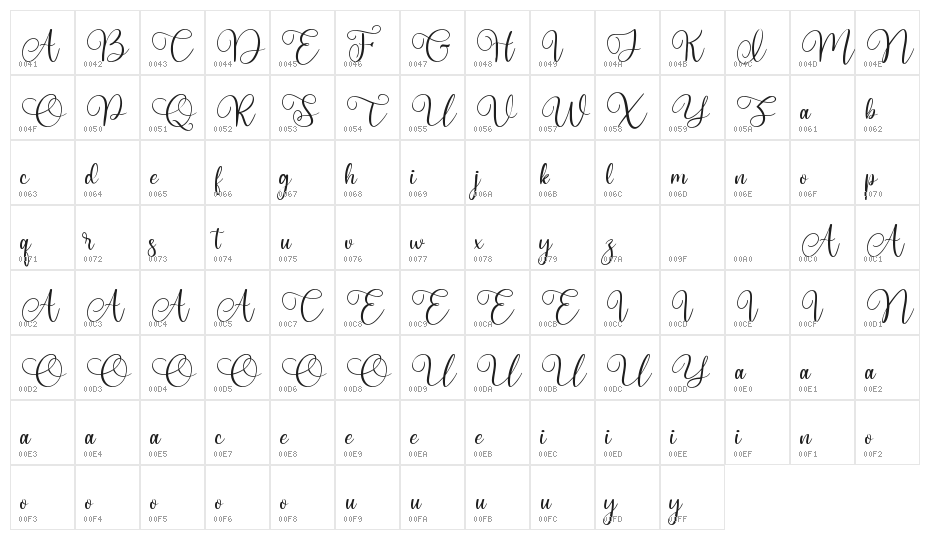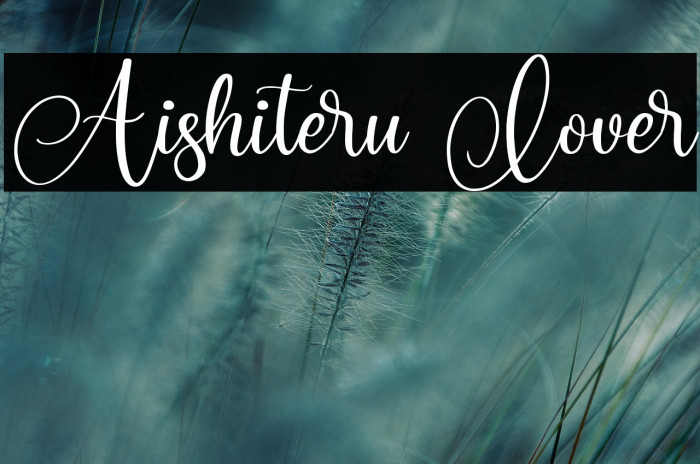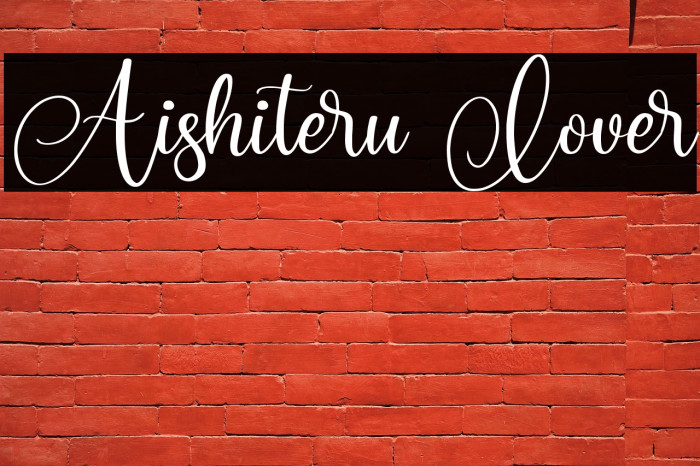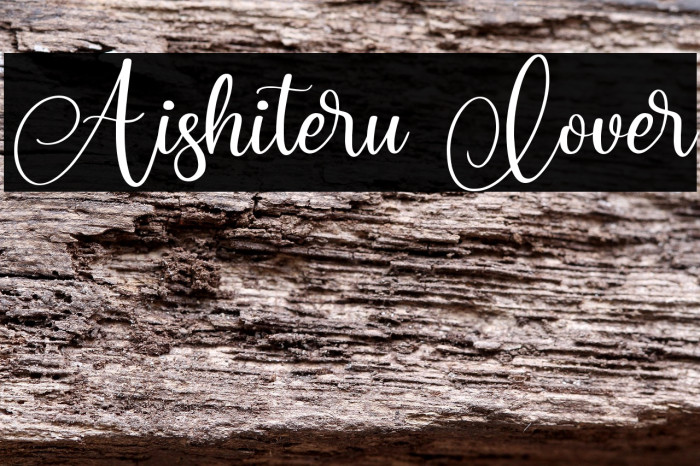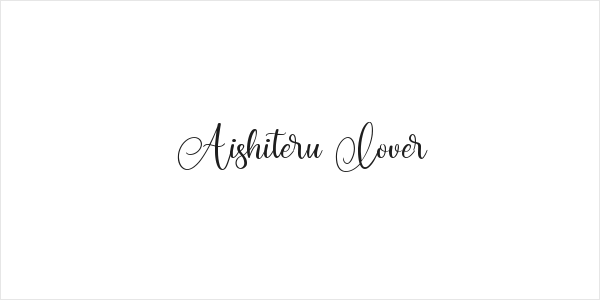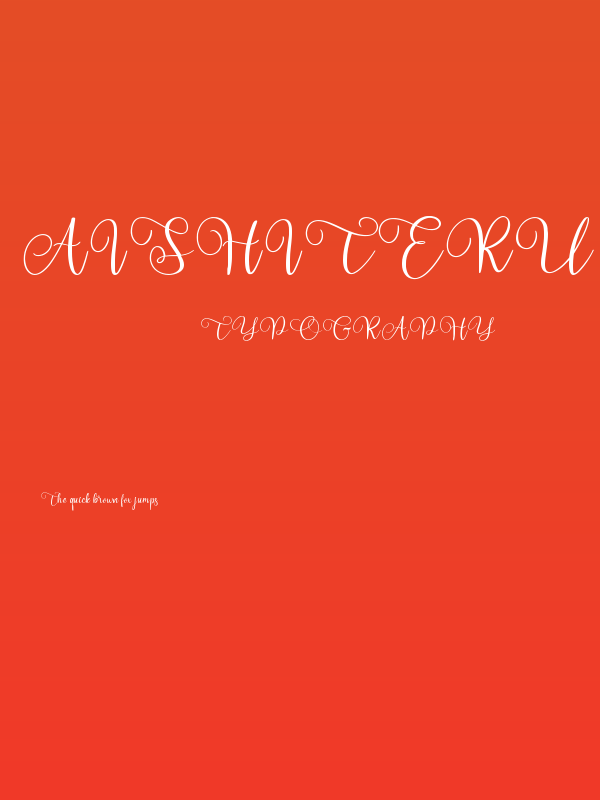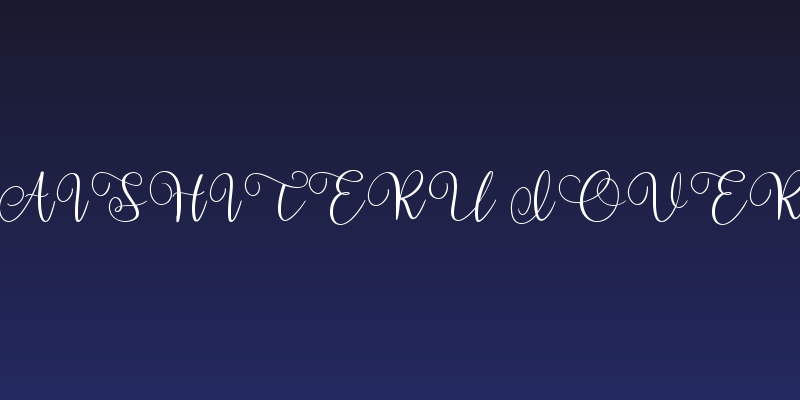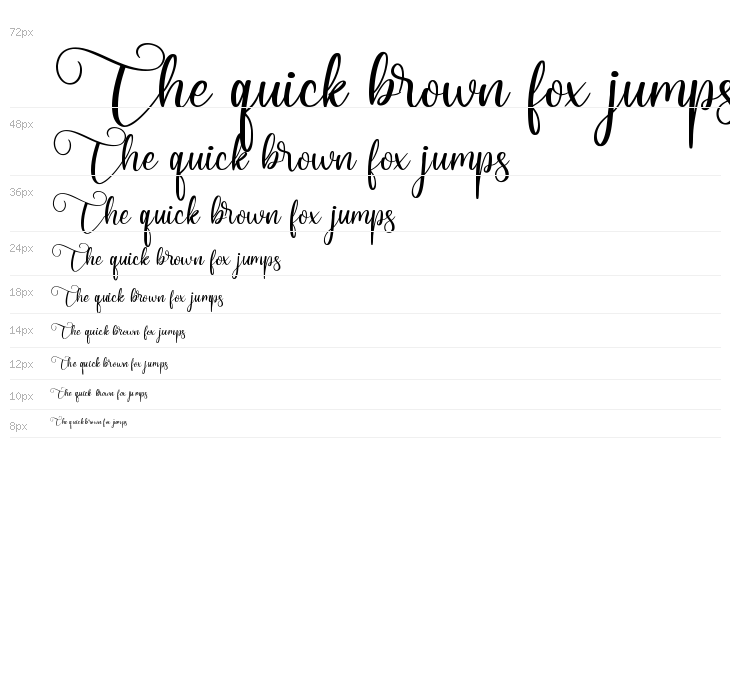
Aishiteru Lover Font
Aishiteru Lover Description
This elegant script font features a flowing, cursive style with intricate loops and swirls, giving it a romantic and sophisticated appearance. The uppercase letters are adorned with elaborate flourishes, while the lowercase letters maintain a smooth, connected flow. The font's design is both graceful and expressive, making it ideal for projects that require a touch of elegance and charm. The characters are well-spaced, ensuring readability while maintaining the decorative nature of the script. This font is perfect for creating eye-catching headlines, invitations, and branding materials that need a personal and artistic touch.
| Use Case | Headlines, Invitations, Logos |
| Proposed Projects | Ideal for wedding invitations, greeting cards, branding, and elegant logos. |